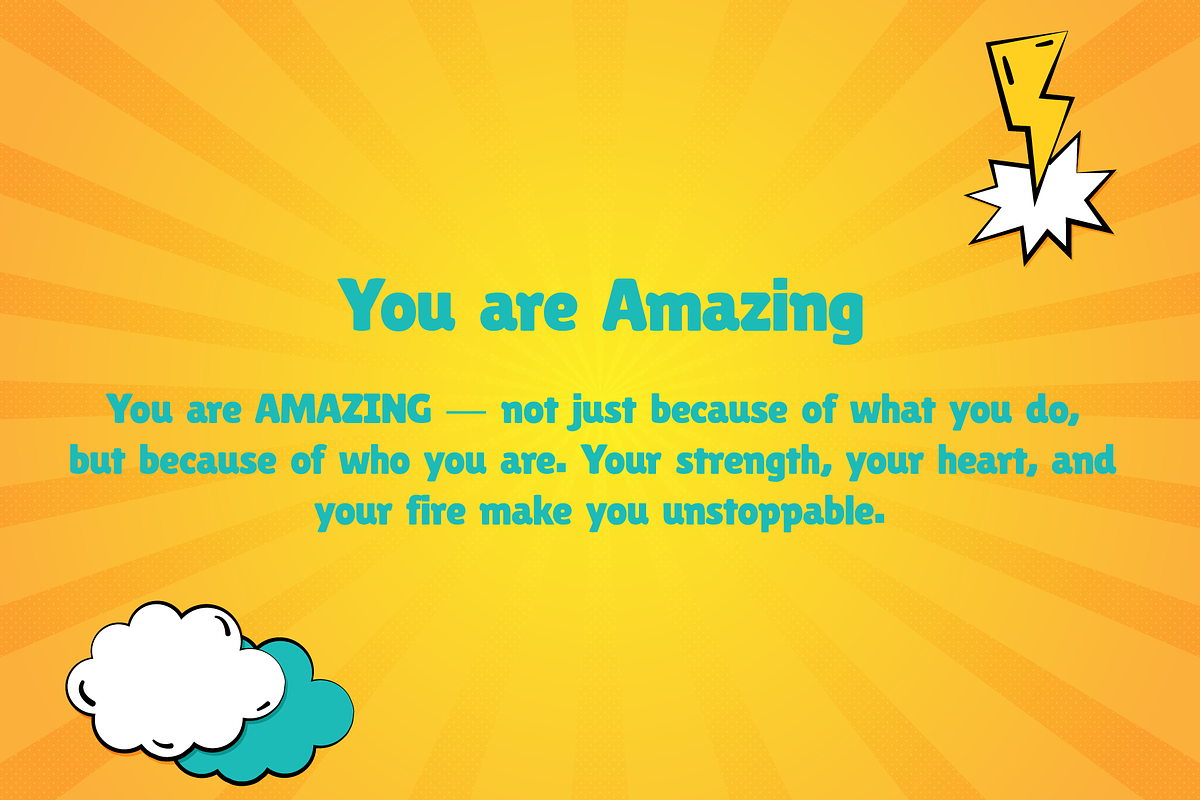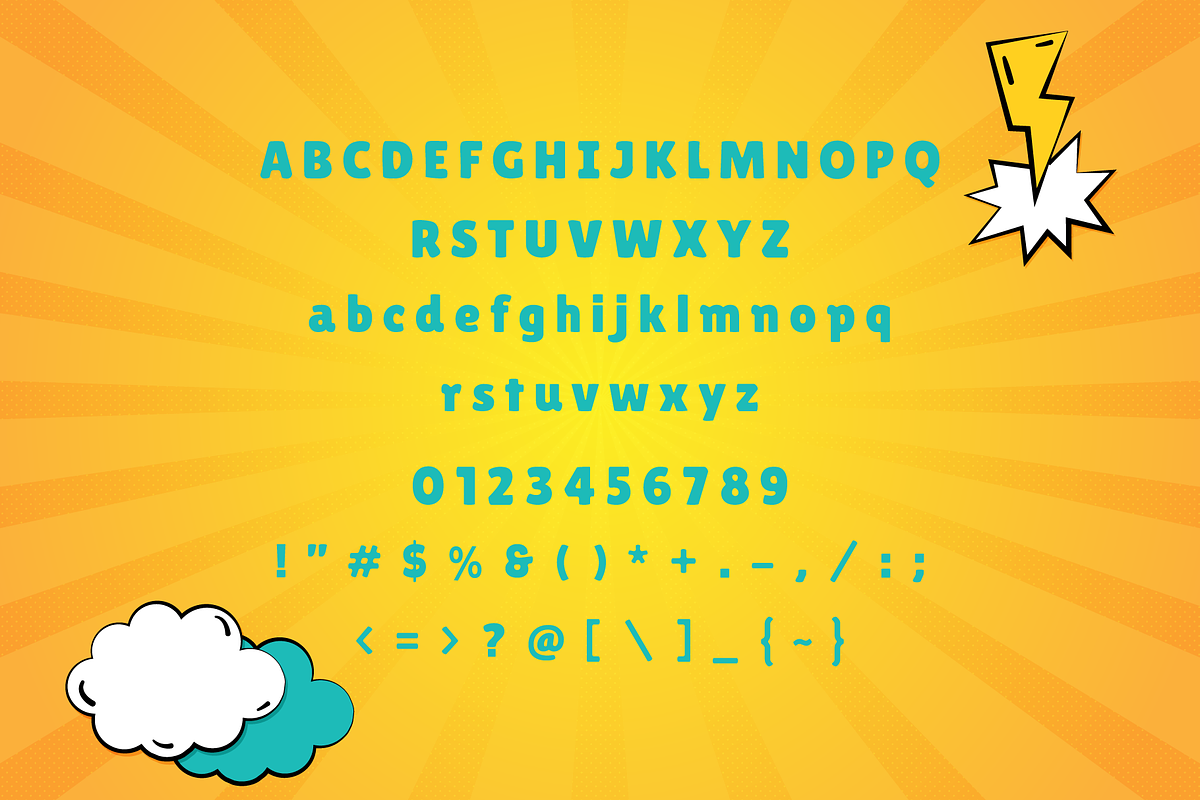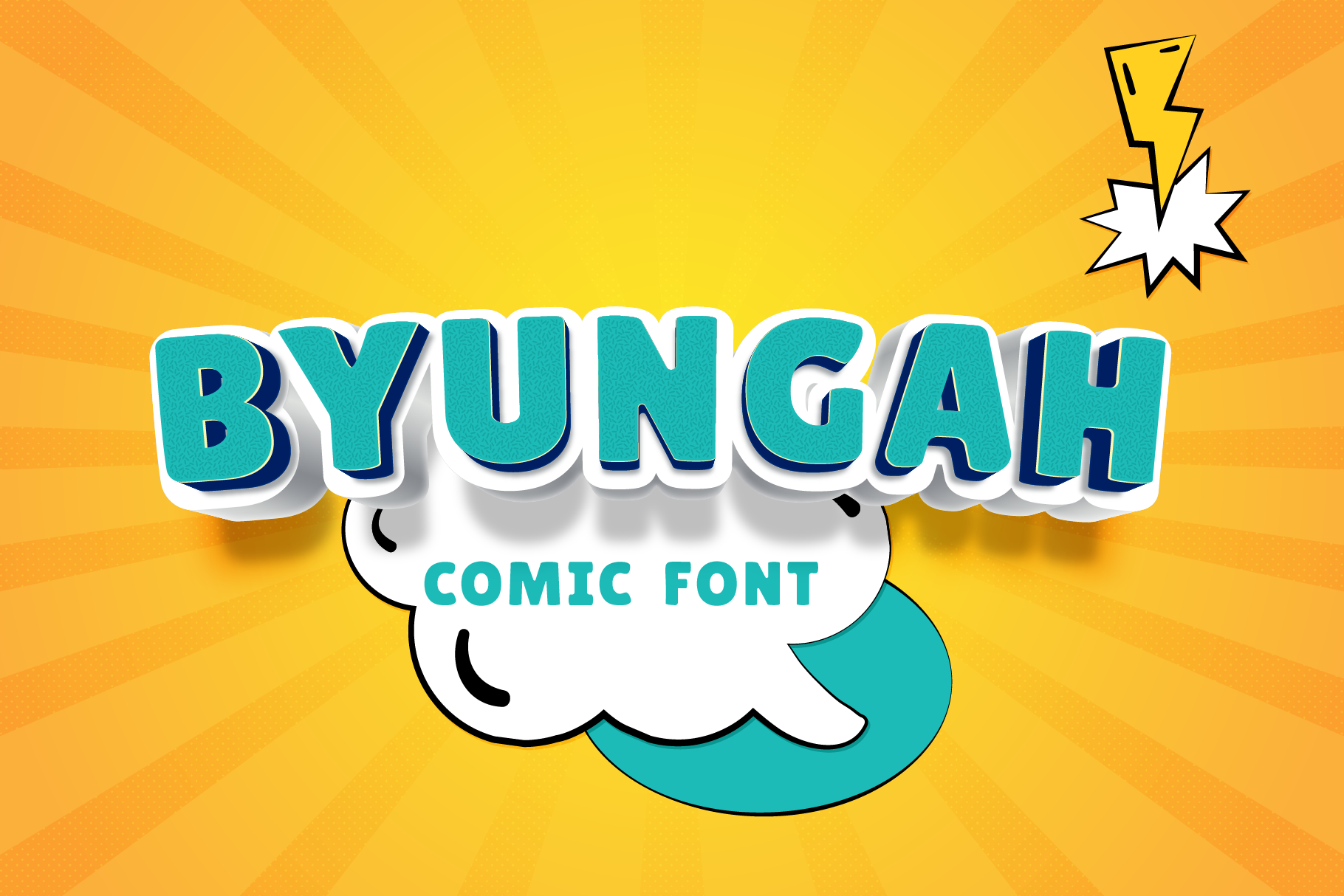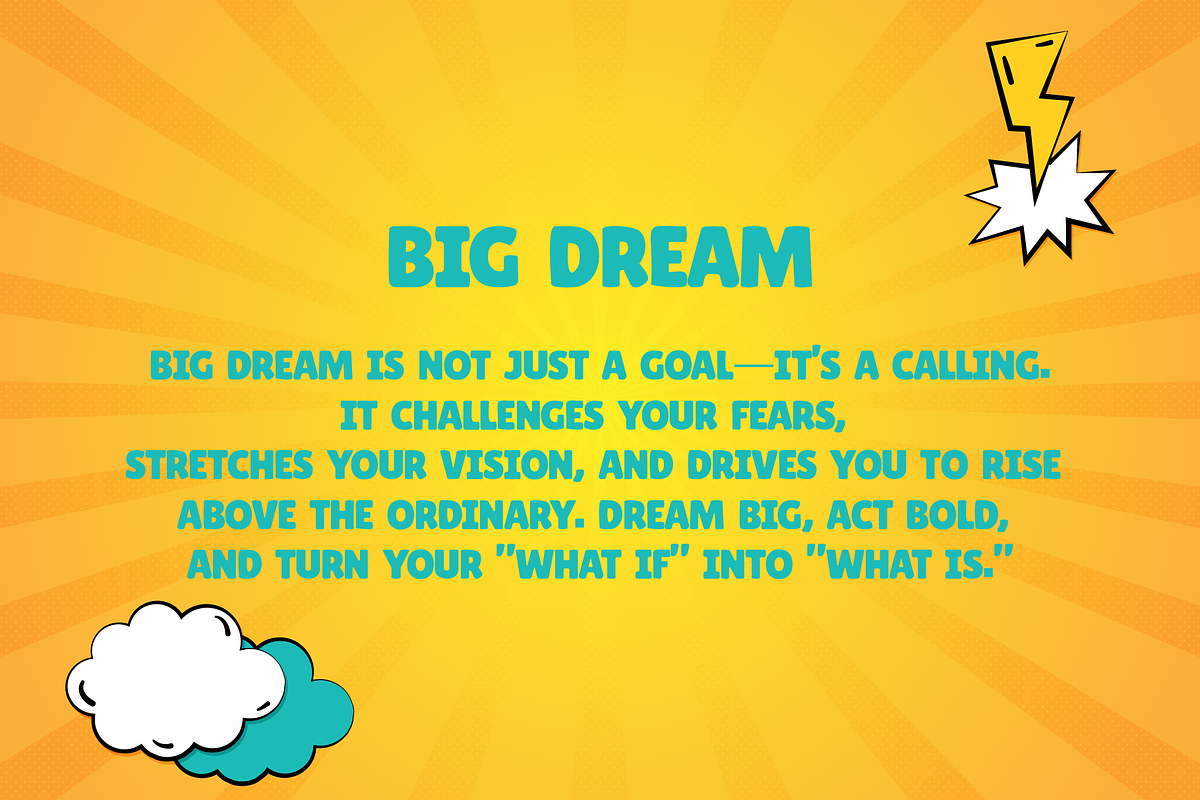
Byungah Comic Display Font
Byungah is a new addition to the world of typography. This font is casual, friendly, and perfect for any kind of creative endeavor you may be using.
Contains all capital letters, numbers, and basic punctuation.